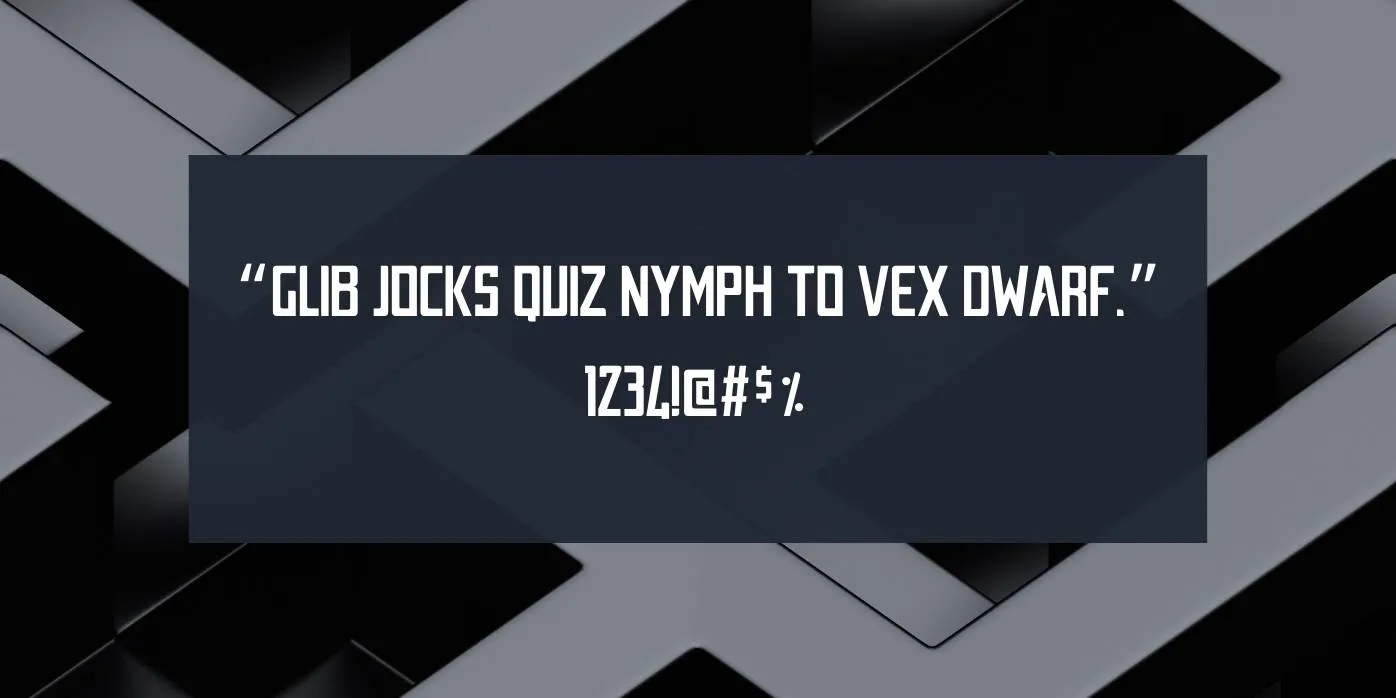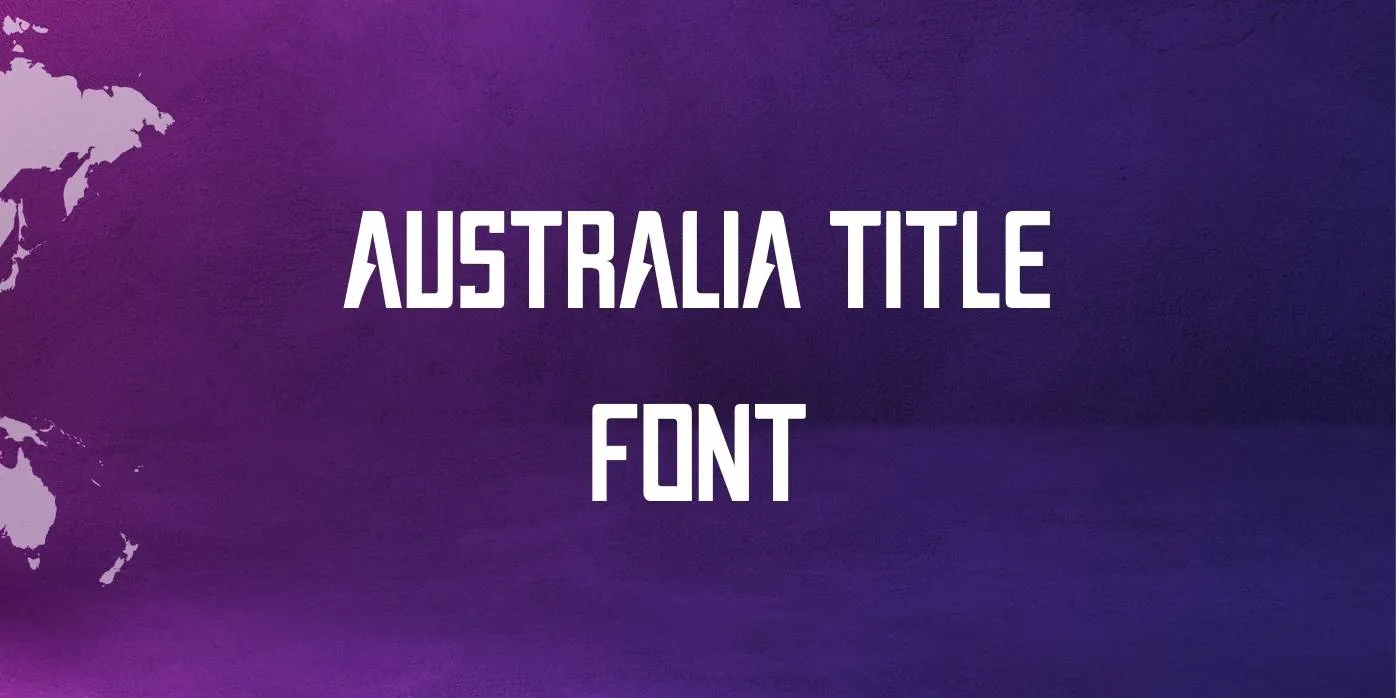
Australia Title Font
Australia Title Font is a very famous and wonderful typeface. This family is categorized as a sans serif family of fonts. The main designer of this typeface is Denver Elvis Ross. This typeface is specially designed for windows and mac operating systems.